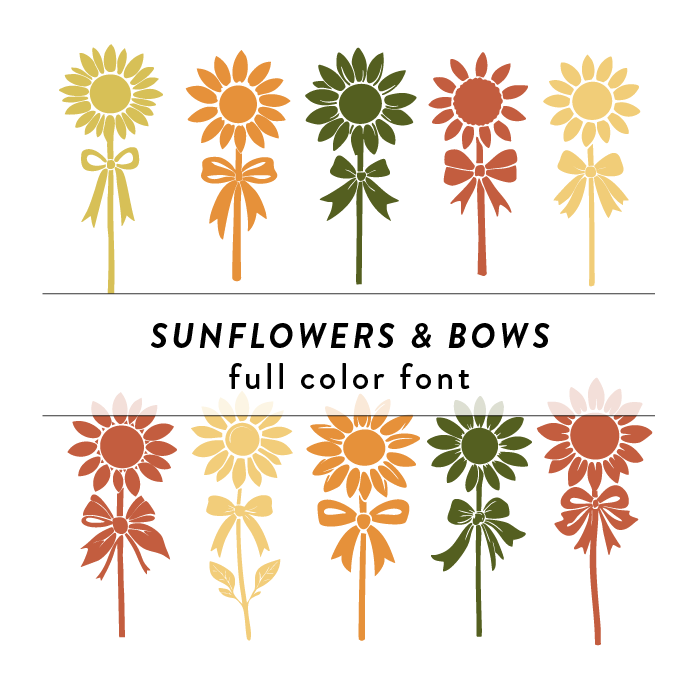
Sunflowers & Bows Full Color Font is a vibrant and playful font design featuring sunflowers and bows intertwined in each letter. Perfect for summer-themed projects, this font adds a touch of whimsy and charm to any craft or design project. This font is a OTF craft font that will appear in color only when used with the silhouette software.